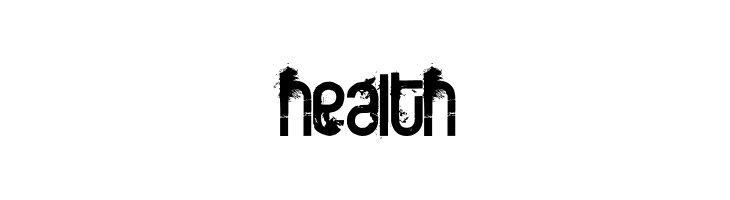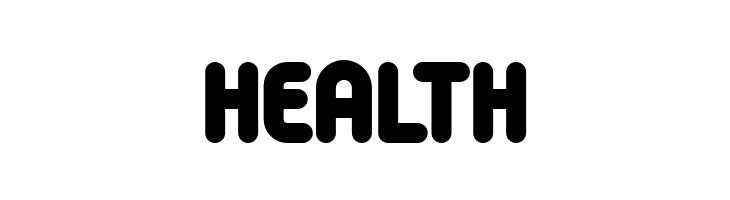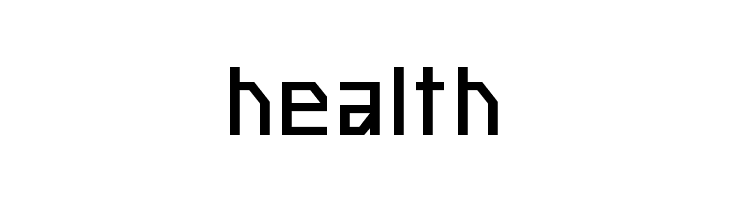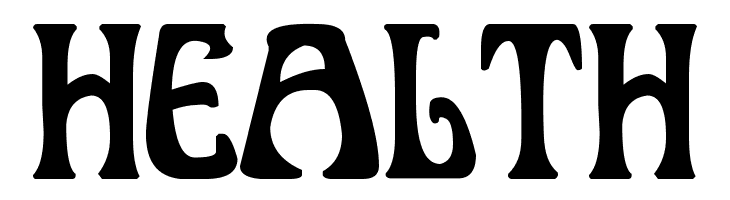
NEW ACADEMY Font
A modern, geometric font with bold, angular shapes and clean lines.
Riffic Font
Font by Nini Prower
A bold, rounded font with a playful and modern style.
Modia-NonCommercial Font
Font by RCgraphics
A bold, geometric font with a modern and impactful design.
FORQUE Font
Font by Tup Wanders - www.tupwanders.nl
A bold, geometric typeface with a vintage poster feel, ideal for impactful headlines.
Waltograph Font
Font by Justin Callaghan - mickeyavenue.com
A playful, handwritten font with smooth curves and whimsical style.
Wiegel Latein Font
An elegant script font with flowing, interconnected letters and decorative flourishes.
Elbaris Font
A bold, geometric font with a modern and distinctive style.
Urban Sketch Font
A bold, textured font with an urban, sketch-like style.
I am online with u Font
A modern, geometric outline font with a futuristic and minimalistic style.
Aristotle Punk Font
Font by Andrew Hart - dirt2.com
A bold, distressed font with a grunge aesthetic and rebellious style.
FrenteH1-Regular Font
A hand-drawn, narrow font with a playful and organic style.
Nine By Five NBP Font
A pixelated, monospaced font with a retro digital aesthetic.
Wiegel Latein Medium Font
An elegant, flowing script font with a classic, handwritten style.
Anita Semi-square Font
A modern, geometric font with a semi-square structure and uniform stroke width.
Urban Brush Font
A bold, rugged font with a hand-painted, urban aesthetic.